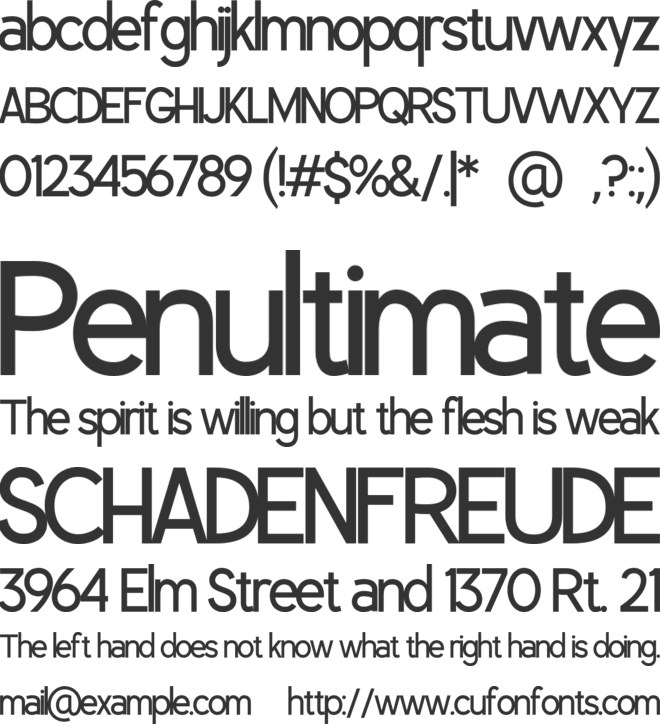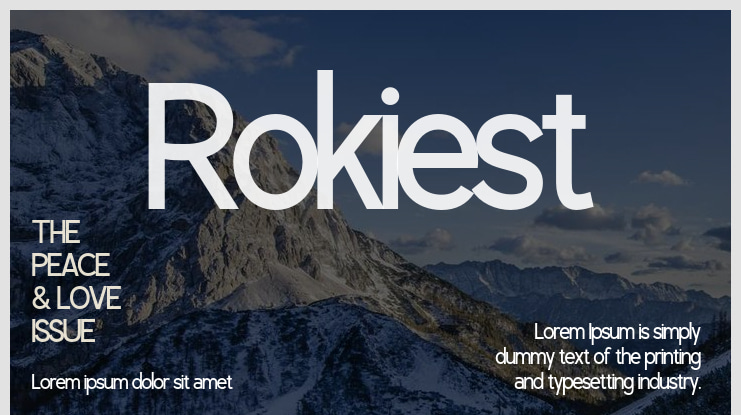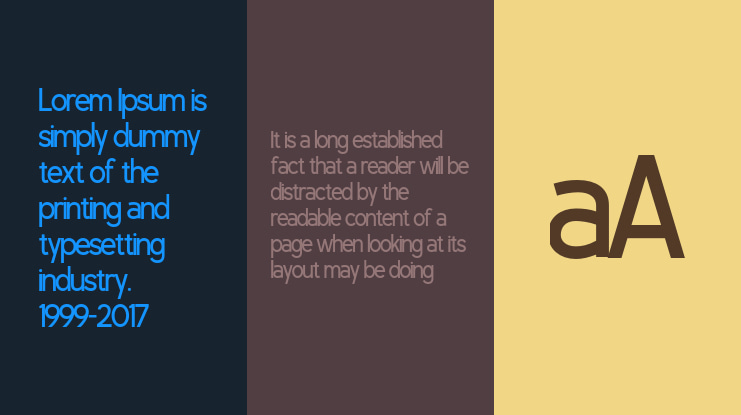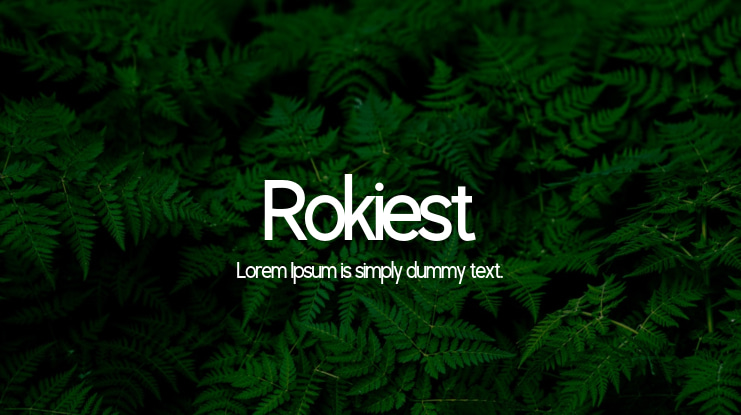
Rokiest Font Family
Rokiest is a sans-serif font that comes in 7 styles. Created with simplicity and minimalism in mind, Rokiest also exudes elegance. The entire typography is designed to work well at large sizes.